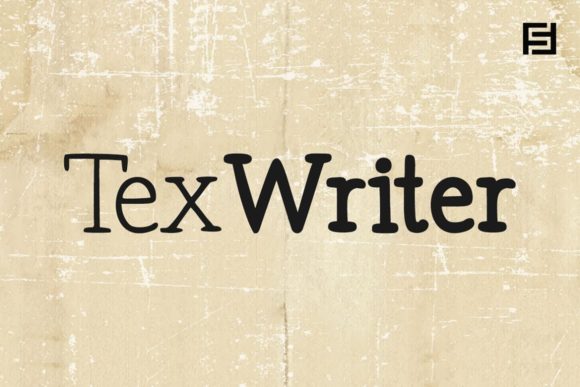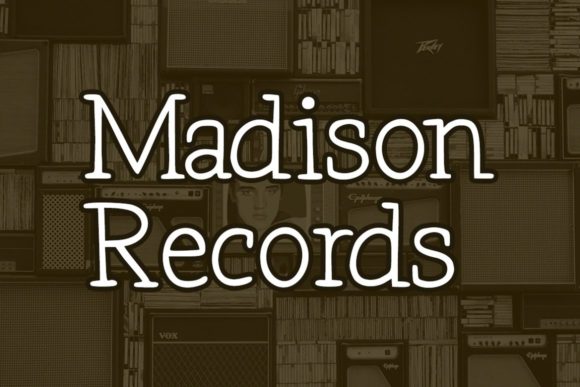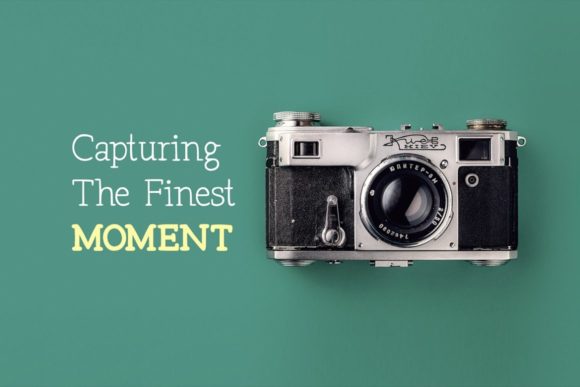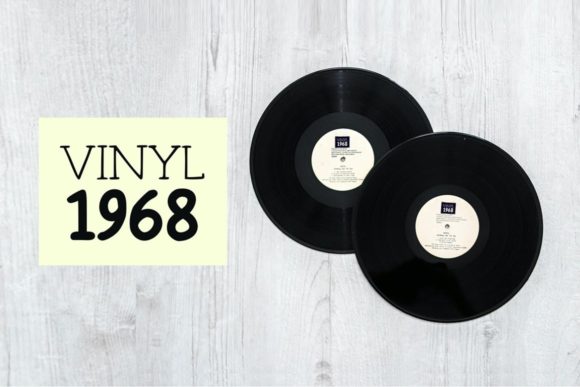
Tex Writer: A Sweet and Friendly Slab Serif Font
Tex Writer is a distinctive slab serif font that combines sweetness with a friendly aesthetic. This versatile typeface offers designers a powerful tool for creating impactful typography across a wide range of design projects.
Key Features of Tex Writer
- Sweet Design: Features a charming and endearing appearance
- Friendly Aesthetic: Offers a warm and approachable look
- Natural Style: Incorporates organic elements for a genuine feel
- Unique Character: Provides a distinctive look that sets it apart from other slab serifs
- Slab Serif Structure: Maintains the characteristic thick, rectangular serifs typical of slab serif fonts
- Versatile Application: Suitable for an incredibly large pool of designs
Font Details
Ideal Uses for Tex Writer
Tex Writer’s unique characteristics make it particularly well-suited for:
- Friendly branding and logo design
- Children’s book typography
- Inviting packaging design
- Warm and approachable website headers
- Social media graphics with a personal touch
When incorporating Tex Writer into your designs, consider the following tips:
- Use for headlines or short blocks of text to maximize its sweet and friendly impact
- Experiment with different sizes to highlight the font’s unique details
- Consider pairing with simpler sans-serif fonts for body text to create contrast
- Take advantage of its versatility by applying it to a wide range of design projects
Tex Writer is an excellent choice for designers looking to add a sweet and friendly slab serif to their typographic toolkit. Its natural and unique style makes it stand out in the world of typography. Whether you’re working on logo designs, creating layouts for children’s books, or developing branding for approachable businesses, Tex Writer offers the perfect blend of charm and versatility.
Let your imagination run wild with Tex Writer and explore how it can bring a sweet and friendly edge to your design projects. From charming branding to inviting digital content, this font provides the tools to create impactful and memorable typography that stands out with its unique blend of sweetness and approachability.